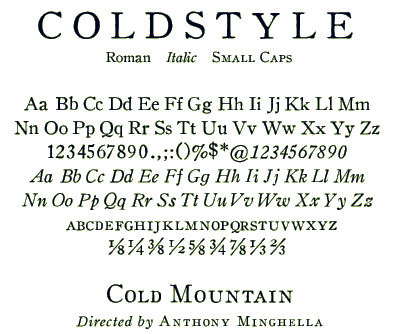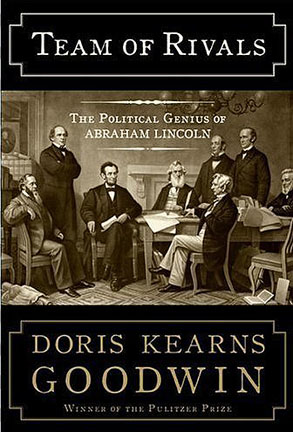
This font was inspired by the classic Old Style No. 1 found in the Linotype catalog from the 1930s. It's gently aged to capture the feel of old metal type. It's highly readable, with a nice even color.
For some reason Coldstyle seems to make people think of the Civil War: the font was used by Deborah Ross Film Design in the opening titles and closing credit sequence of the Miramax film Cold Mountain, and subsequently on the dustjacket for the book Team of Rivals. Clip from Cold Mountain used with the kind permission of Deborah Ross Film Design |